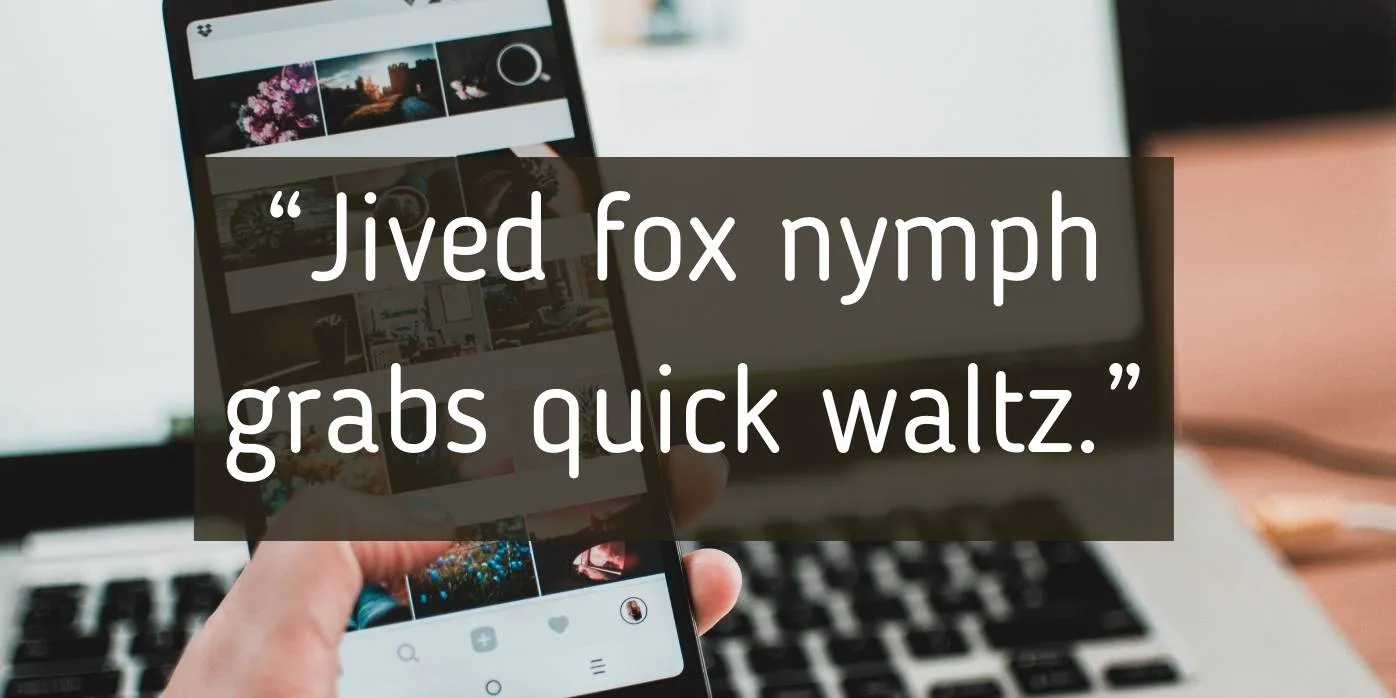
Blogger Sans Font
Blogger Sans Font is developed by Sergiy Tkachenko. This awesome font belongs to the Sans-Serif typeface. This Font is a clean, legible, and versatile font that is perfect for body text or any other type of design work. It includes styles almost identical to the standard typefaces Helvetica, but they are slightly less formal.
This staggering Font is a great font for web designing, printing, and other creative works. This font has also the best for IBM, Microsoft, and Dell. This typeface is very famous because of its readability in small sizes and its legibility on screens. If you want to achieve success in web designing, then this cozy is perfect for you.
You can use this font by making pairing it with Helvetica Font. This typeface is best for Adobe. This typeface includes a complete character set with uppercase and lowercase letters, numerals, punctuation, and symbols. This font is best for SVG and Corel Draw.
This Font family has six weights that include thin, light, normal, semi bold, bold, and black. All these weights increase overall performance. For graphics designs, you can use its tool generator.